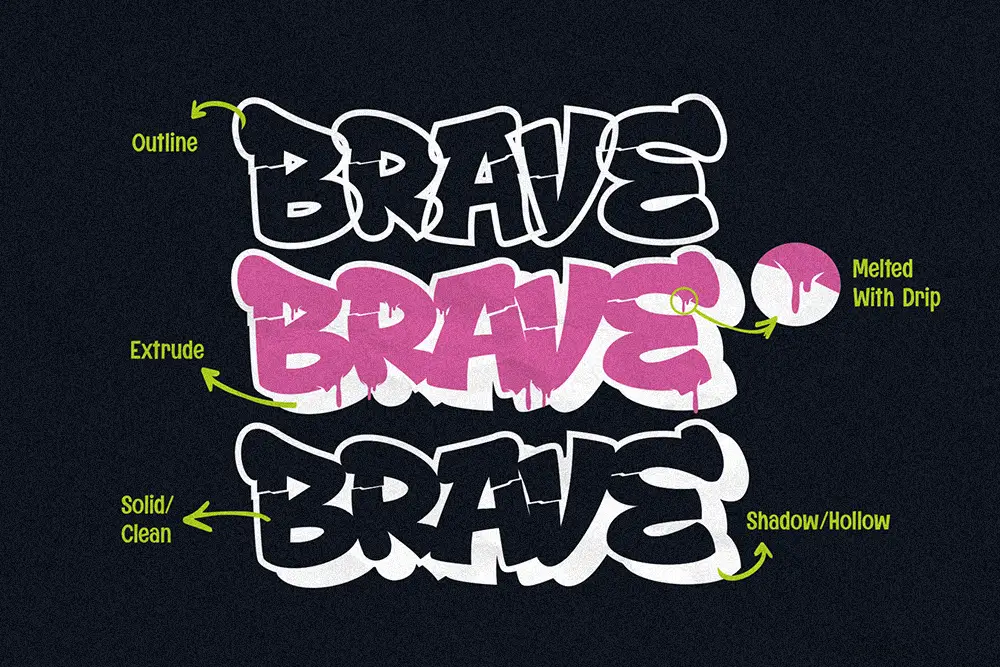
Drop Shade – Melted Layered Graffiti Font for Bold Creative Design
Typography defines the personality of a design, and when it comes to urban-inspired projects, nothing beats the raw energy of a melted layered graffiti font. Drop Shade – Melted Layered Graffiti Font is built to capture the spirit of the streets with dripping effects, bold layered options, and powerful all-caps design. Perfect for posters, music covers, streetwear branding, and creative campaigns, this typeface brings graffiti energy directly into your artwork.
As a melted layered graffiti font, Drop Shade is more than just a typeface—it’s a complete system with layered styles that allow endless creativity. Whether you want bold outlines, shadow depth, or dripping melt effects, this font gives you full control over your urban storytelling.
Melted Layered Graffiti Font with Unlimited Style
What makes Drop Shade stand out is its layered graffiti font construction. It comes with multiple styles—regular, outline, extrude, shadow, and melt—that you can stack together or use individually. This flexibility gives designers endless possibilities to create bold headlines, authentic graffiti looks, or even 3D-inspired effects.
Every letter is designed in all caps, making it perfect for strong titles, impactful poster layouts, and branding that demands attention. The dripping melt details enhance the authenticity of this melted layered graffiti font, bringing street culture energy to your designs.
Key Features of Drop Shade – Melted Layered Graffiti Font
• All Caps Letters: Designed entirely in uppercase for maximum impact.
• Support Multilingual: Extended Latin character set for global design projects.
• Alternates in Numbers: Unique numeric alternates for creative flexibility.
• Layered System: Combine styles for shadow, extrusion, and melt effects.
• Graffiti-Inspired Style: Perfect for posters, street art, and bold urban branding.
Why Designers Love Drop Shade
Designers love Drop Shade – Melted Layered Graffiti Font because it gives them the tools to experiment. Unlike static graffiti typefaces, Drop Shade’s layered system lets creatives build custom effects that match their project’s vibe.
• Versatility: Multiple styles in one package—outline, shadow, extrude, melt.
• Authenticity: Dripping details capture the raw look of spray-painted graffiti.
• Global Appeal: Multilingual support makes it usable for international campaigns.
Drop Shade for Posters and Street Art
When designing urban posters or event flyers, you need a font that screams attitude. Drop Shade is the melted layered graffiti font that ensures your designs capture attention. The shadow and extrude versions add depth, while the melt effect makes the artwork feel alive.
Perfect for music festivals, skate events, and underground campaigns, Drop Shade brings street art into digital and print projects seamlessly.
Drop Shade for Branding and Logos
For brands that want to connect with youth culture, authenticity is key. Drop Shade works as a graffiti display font that creates memorable logos with edge. Whether you’re designing for lifestyle brands, entertainment projects, or digital campaigns, its layered system gives your logos a raw yet professional look.
Drop Shade for Digital Media
In the world of social media and online promotion, visuals need to pop instantly. Drop Shade, as a melted layered graffiti font, is perfect for Instagram posters, YouTube thumbnails, and digital campaigns. The all caps design ensures maximum readability while maintaining an authentic graffiti vibe.
• Character Set: All Caps + Numbers with Alternates
• Category: Melted Layered Graffiti Font
• Best Uses: Posters, Street Art, Logos, Branding, Digital Media, Social Content
Why Drop Shade is the Ultimate Melted Layered Graffiti Font
Drop Shade – Melted Layered Graffiti Font is a complete package for modern designers. Whether you’re building posters, crafting bold logos, or creating digital content, its layered system provides maximum flexibility. Combine it with Street Rats for even more urban authenticity, or use it solo for an unstoppable graffiti look.